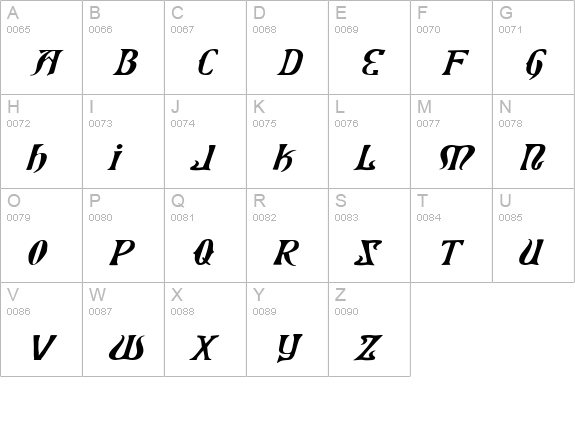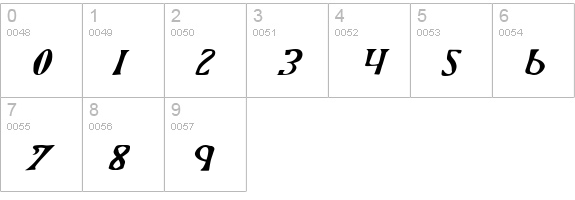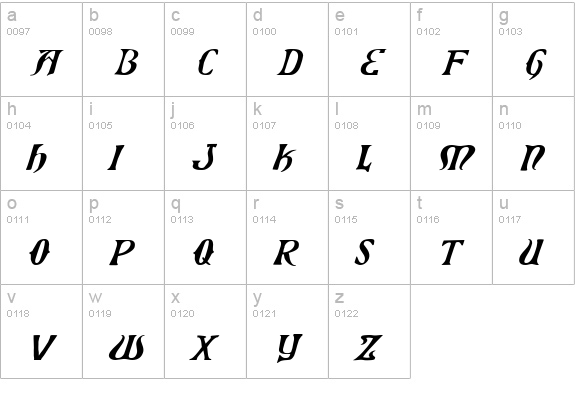
Xiphos Expanded Italic is a distinctive, extended-width, italic variant in the Xiphos typeface family \xE2\x80\x94 well suited to design and typography projects.
Xiphos Expanded Italic font is a stylish and modern typeface that exudes elegance and sophistication. Its sleek design and italicized structure make it perfect for adding a touch of flair to any project. The Xiphos Expanded Italic font is versatile and can be used for a wide range of design applications, from branding and marketing materials to invitations and web graphics. One of the best features of the Xiphos Expanded Italic font is that it is completely free to download. You can easily access this beautiful font at FontsMarket.com, where you can find a wide selection of high-quality fonts for all your creative needs. Don't miss out on the opportunity to enhance your projects with the Xiphos Expanded Italic font, available for free download now!